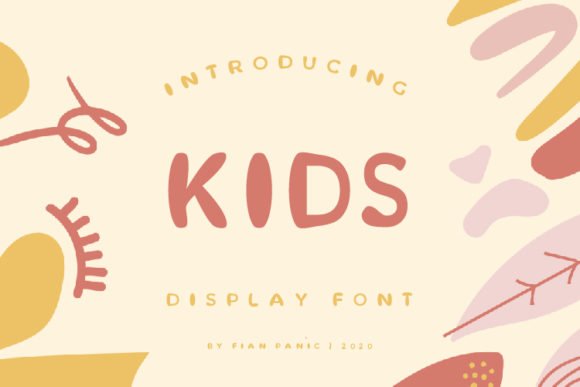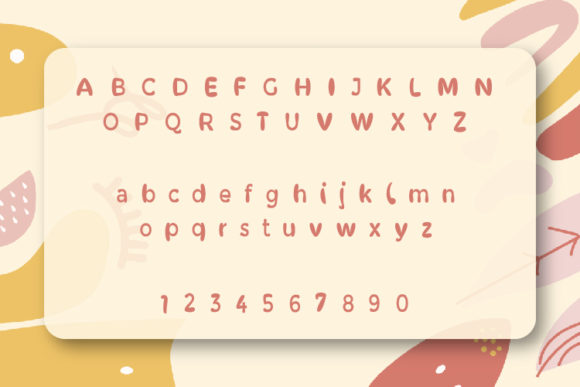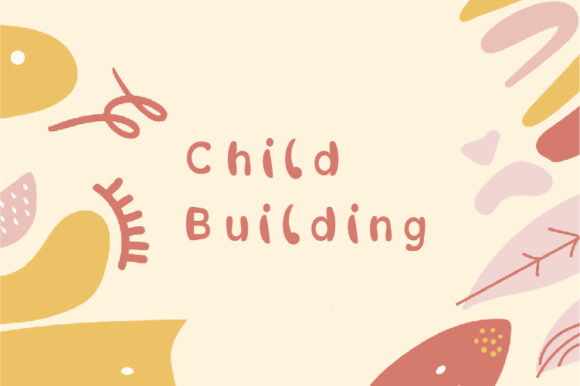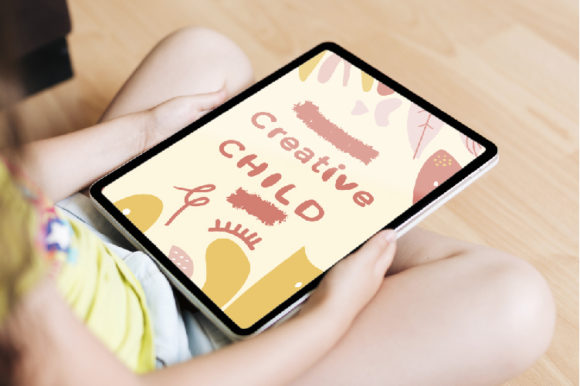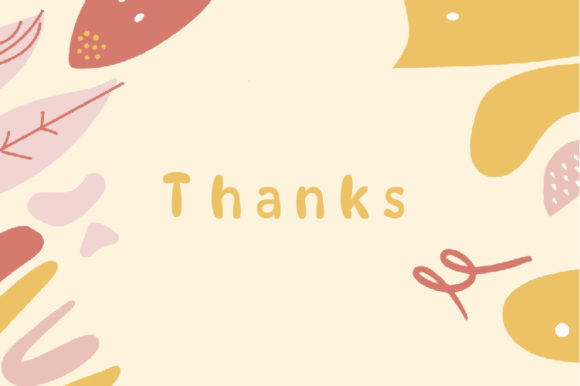
Unleashing the Playful Spirit with Kids Font
Do you remember the joy of scribbling with crayons on a coloring page, or the excitement of creating a handmade card for a loved one? Those carefree moments are a big part of childhood, and that’s exactly what Kids Font embodies.
This adorable display font is designed to capture the essence of childhood playfulness and authenticity. Its chunky letters are perfect for adding a touch of whimsy to any design, whether it’s a children’s activity, a school project, or even a marketing campaign targeting young audiences. By incorporating Kids Font into your designs, you’ll bring a sense of wonder and excitement to your work.
Kids Font Key Features
- Unique Characteristics: Kids Font is designed with a playful, child-friendly aesthetic, featuring rounded edges, simple shapes, and a limited color palette to promote readability and visual appeal.
Designer Review: Kids Font
Overall, I think Kids Font has some great qualities, but it also has some limitations that might make it less suitable for certain projects.
- Playful and fun design: Kids Font is perfect for any project that requires a childlike or whimsical feel.
- Highly legible: The font is designed to be easy to read, even for young children.
- Customizable: Kids Font comes in a range of styles and weights, making it easy to find the perfect fit for your project.
- Limited versatility: While Kids Font is great for children’s projects, it might not be the best choice for more formal or professional designs.
- Overuse risk: The playful design of Kids Font can become overwhelming if overused, so be sure to use it sparingly.
- Not suitable for complex text: Due to its playful nature, Kids Font might not be the best choice for projects that require complex or technical text.
In conclusion, Kids Font is a great choice for projects that require a fun and playful feel, but it’s essential to consider its limitations before using it. With a little creativity and restraint, Kids Font can add a delightful touch to your design.
Tips for Getting the Most Out of “Kids Font”
Use “Kids Font” to add a playful touch to your designs, especially for children’s products, educational materials, or family-friendly branding.
Combine “Kids Font” with bright colors and fun graphics to create an engaging visual identity.
“Kids Font” is commonly used for:
Children’s books and educational materials
Family-friendly branding and marketing campaigns
Party invitations and decorations
Alternatives to “Kids Font” for Designers
Great Vibes is a modern, elegant script font that is perfect for creating a fun and playful atmosphere. It is ideal for use in titles, headings, and logos. Great Vibes is similar to Kids Font in its playful nature, but it has a more refined and sophisticated look.
Pacifico is a beautiful, cursive script font that is reminiscent of handwritten text. It is perfect for use in titles, headings, and body text where a touch of elegance is needed. Pacifico is more elegant than Kids Font and has a more relaxed feel.